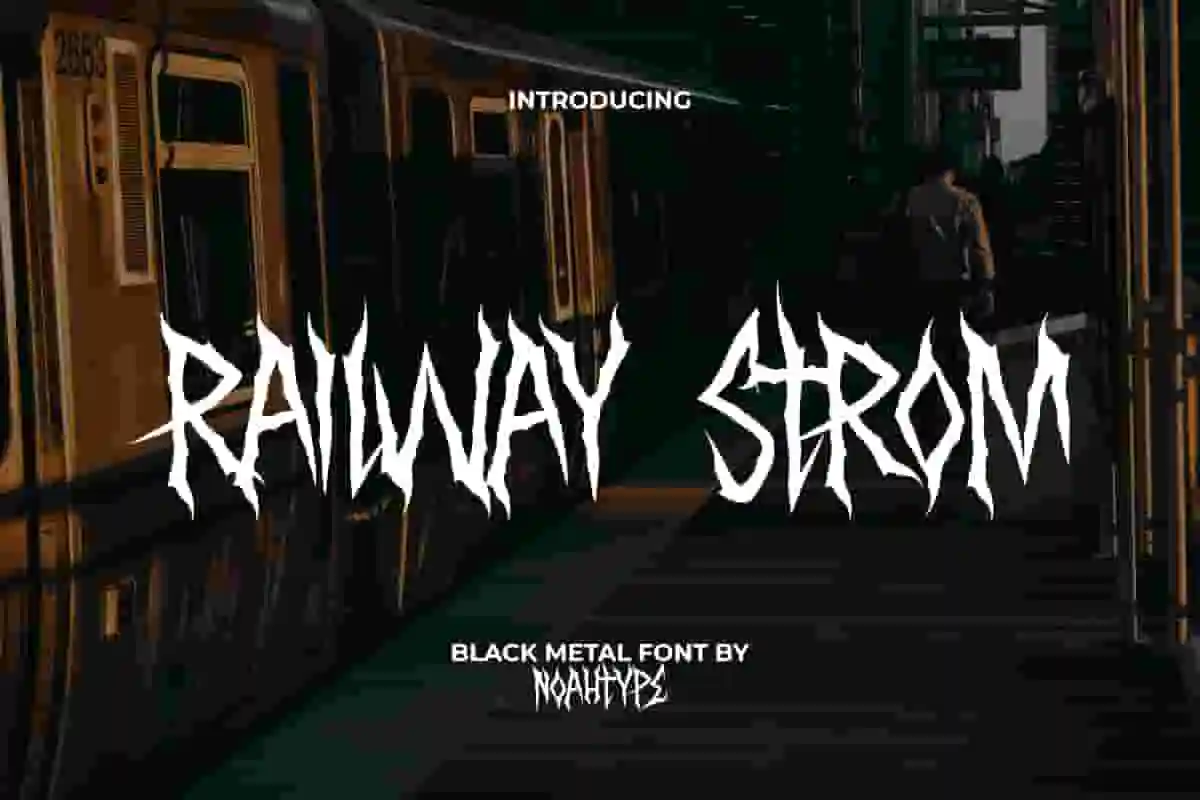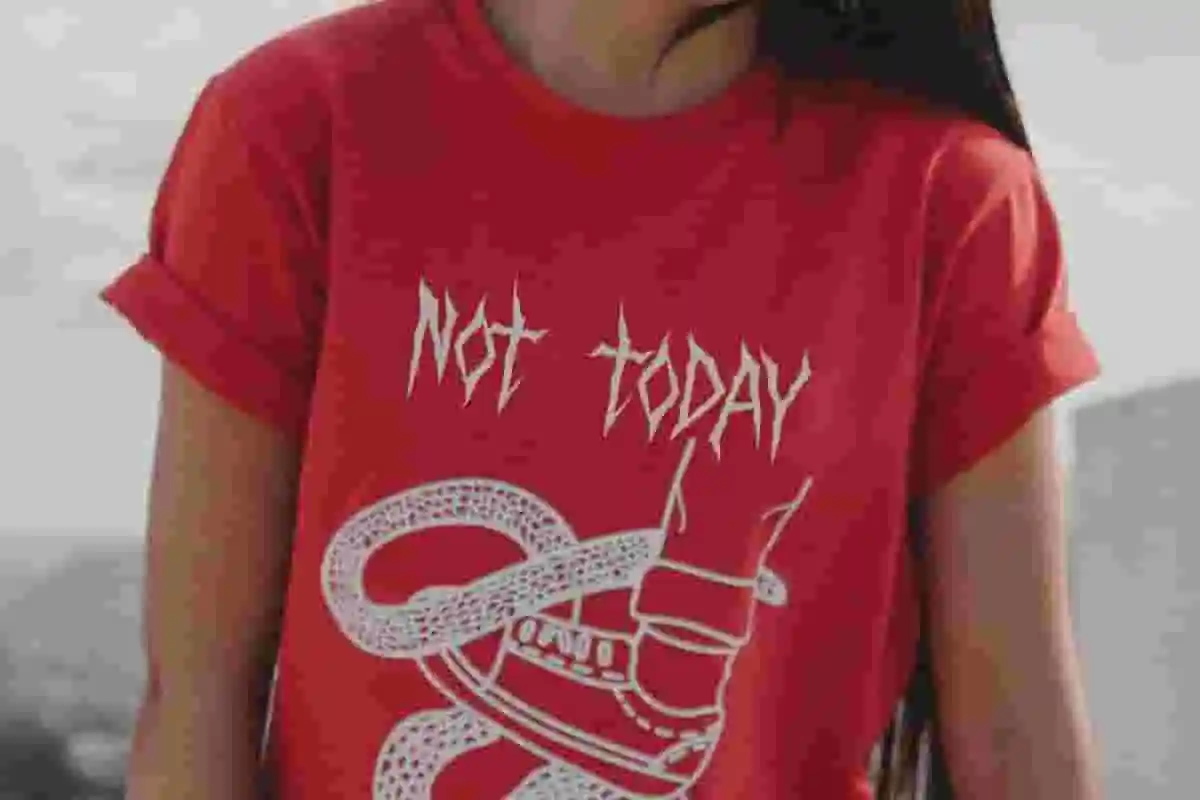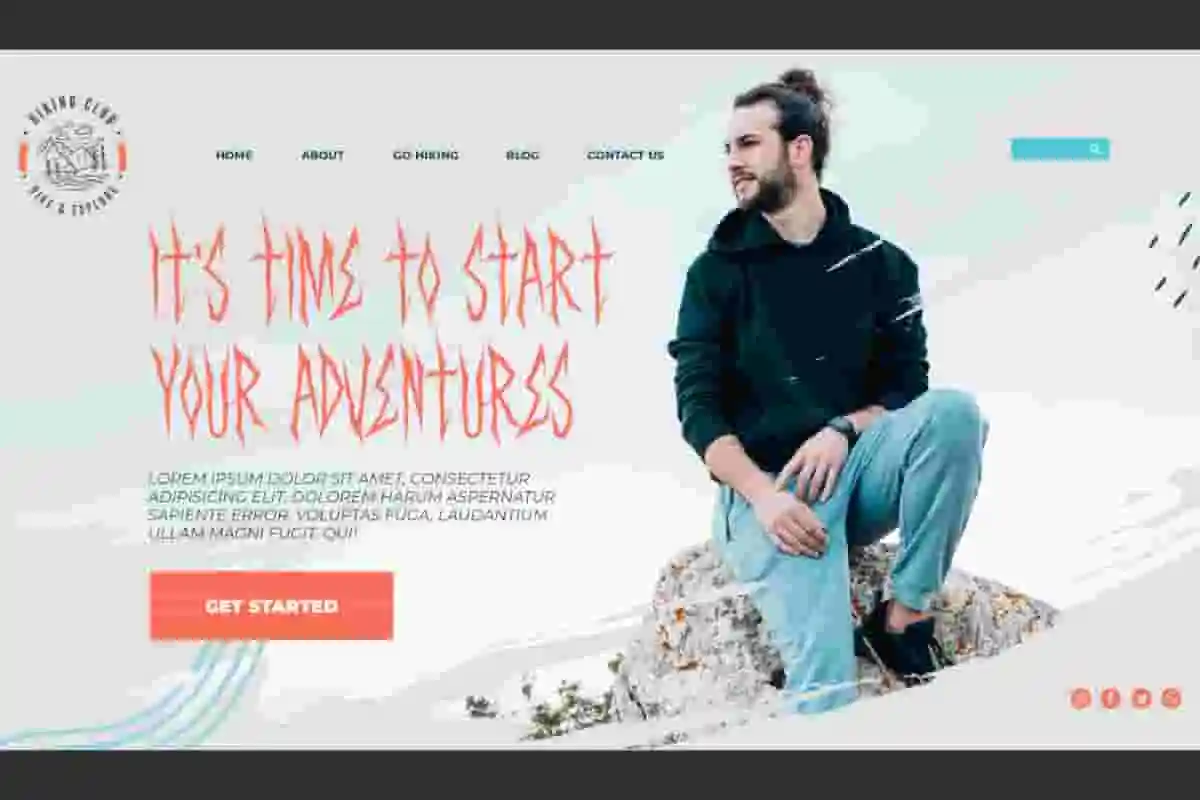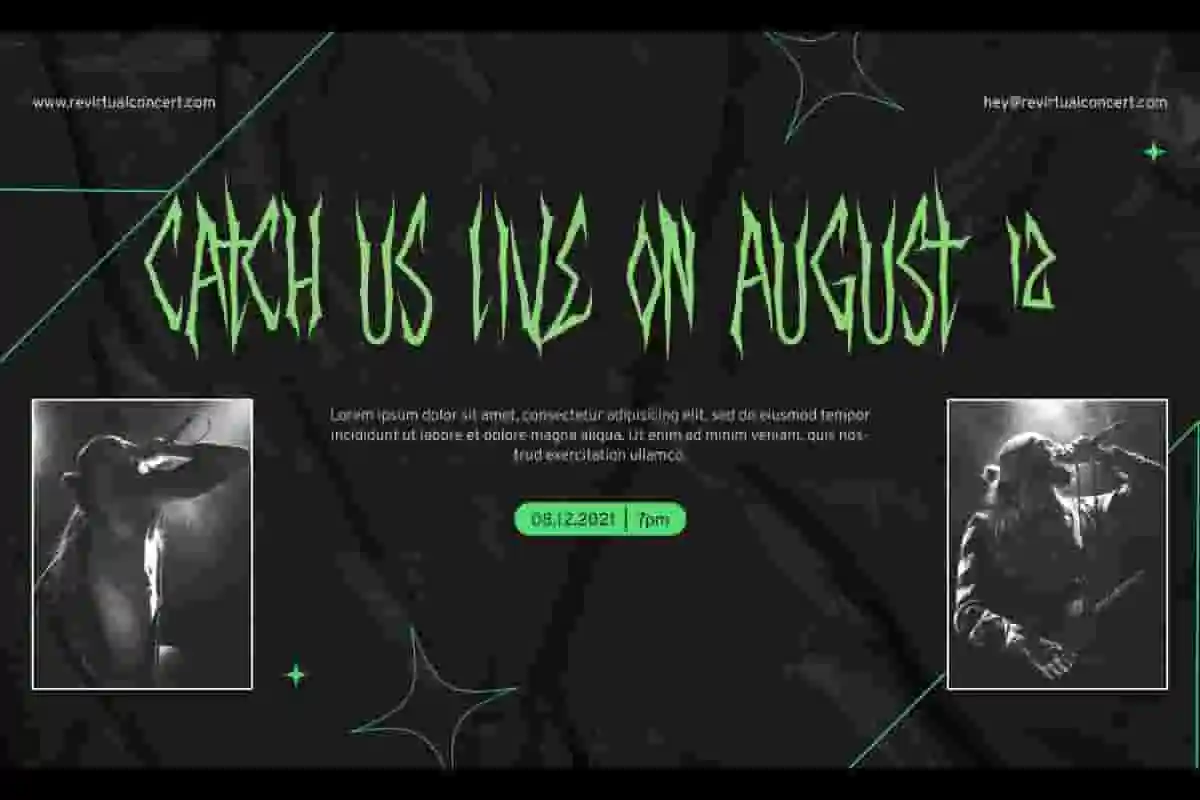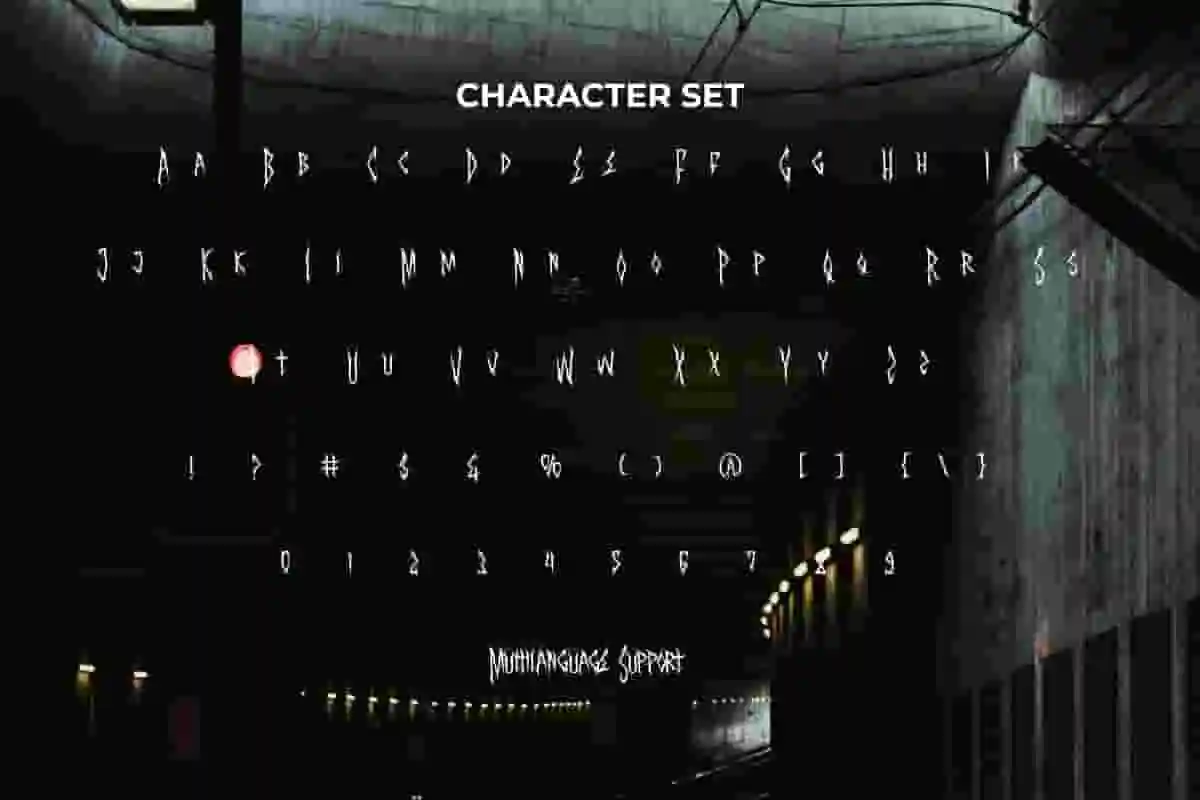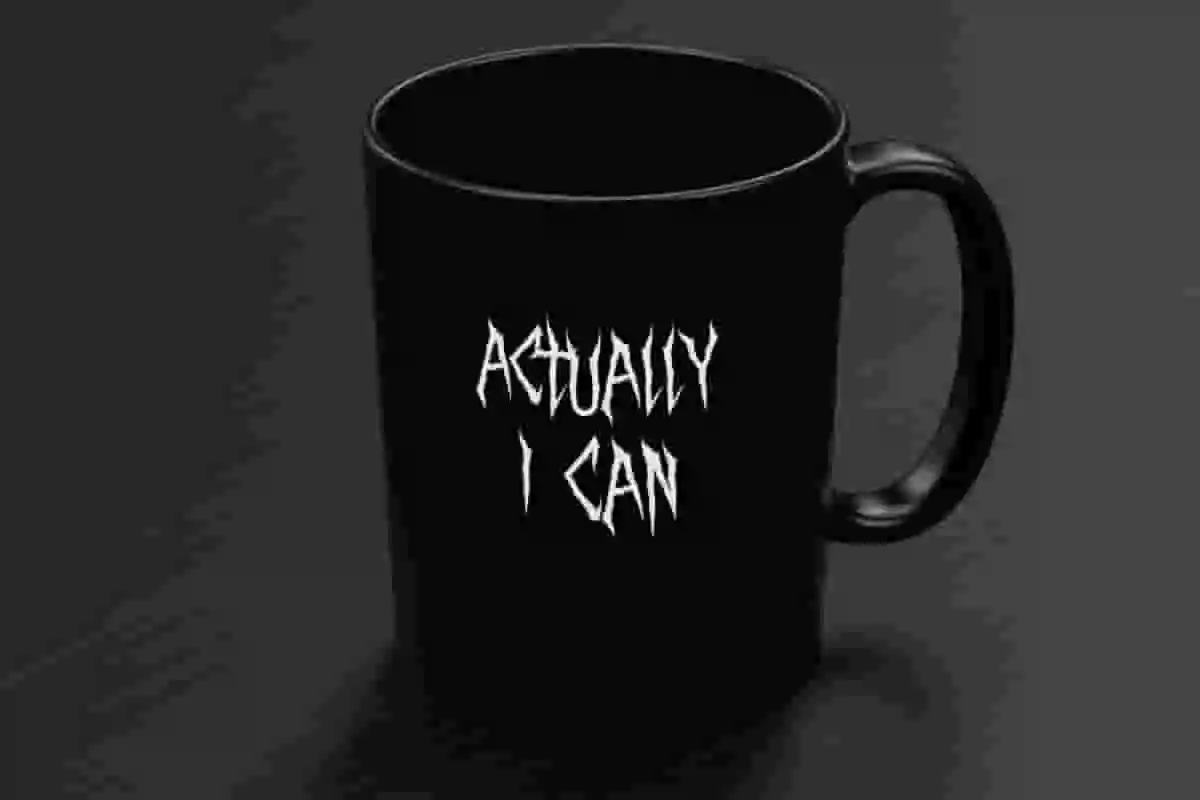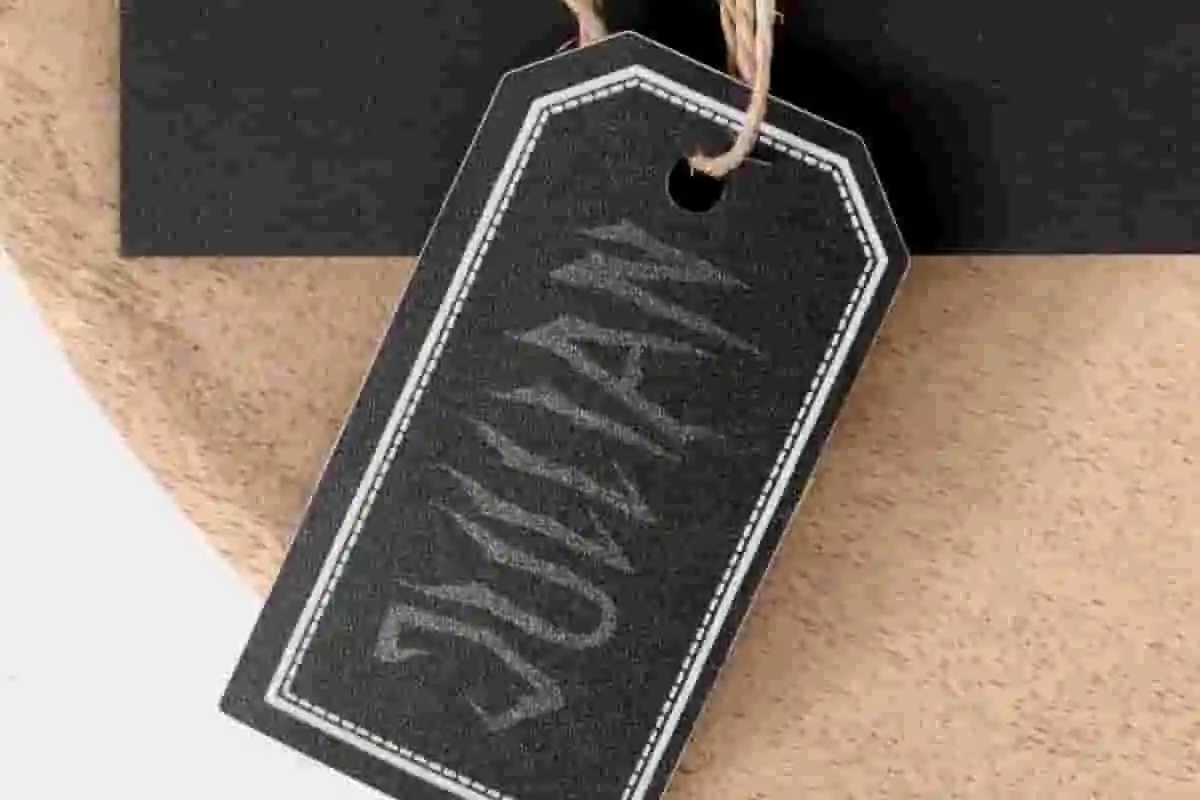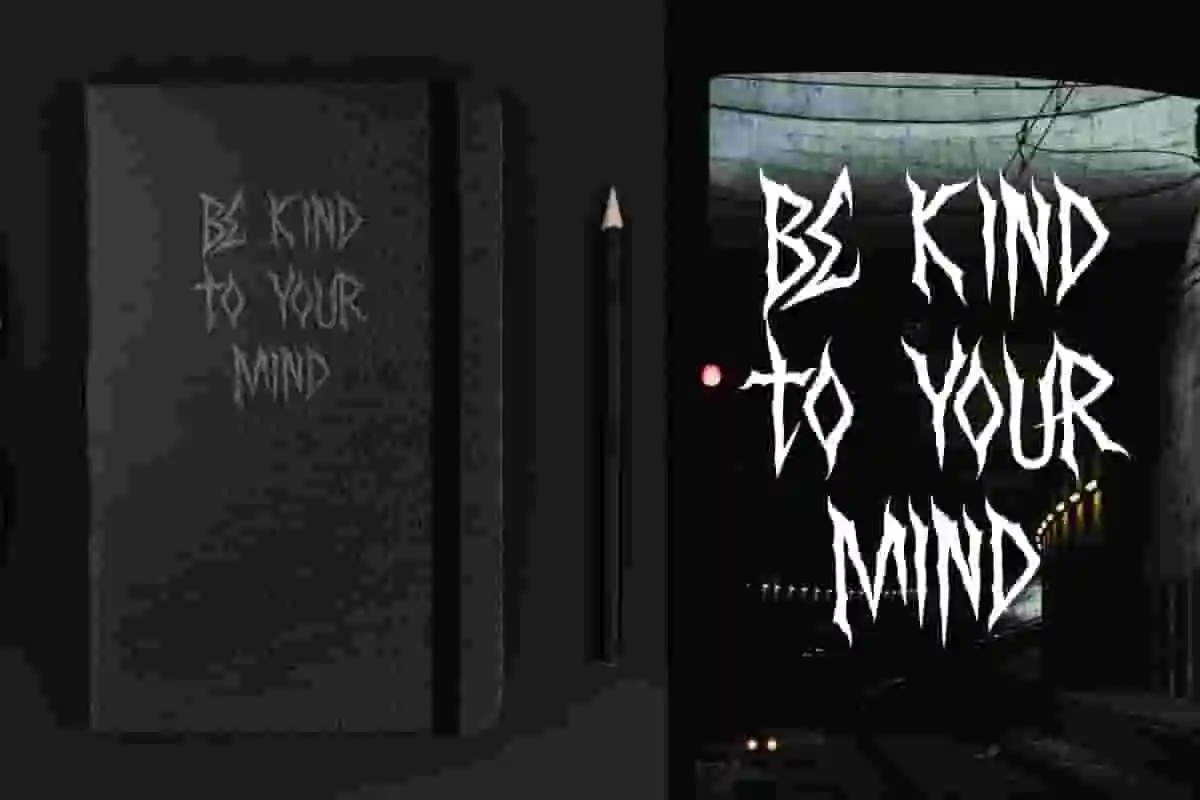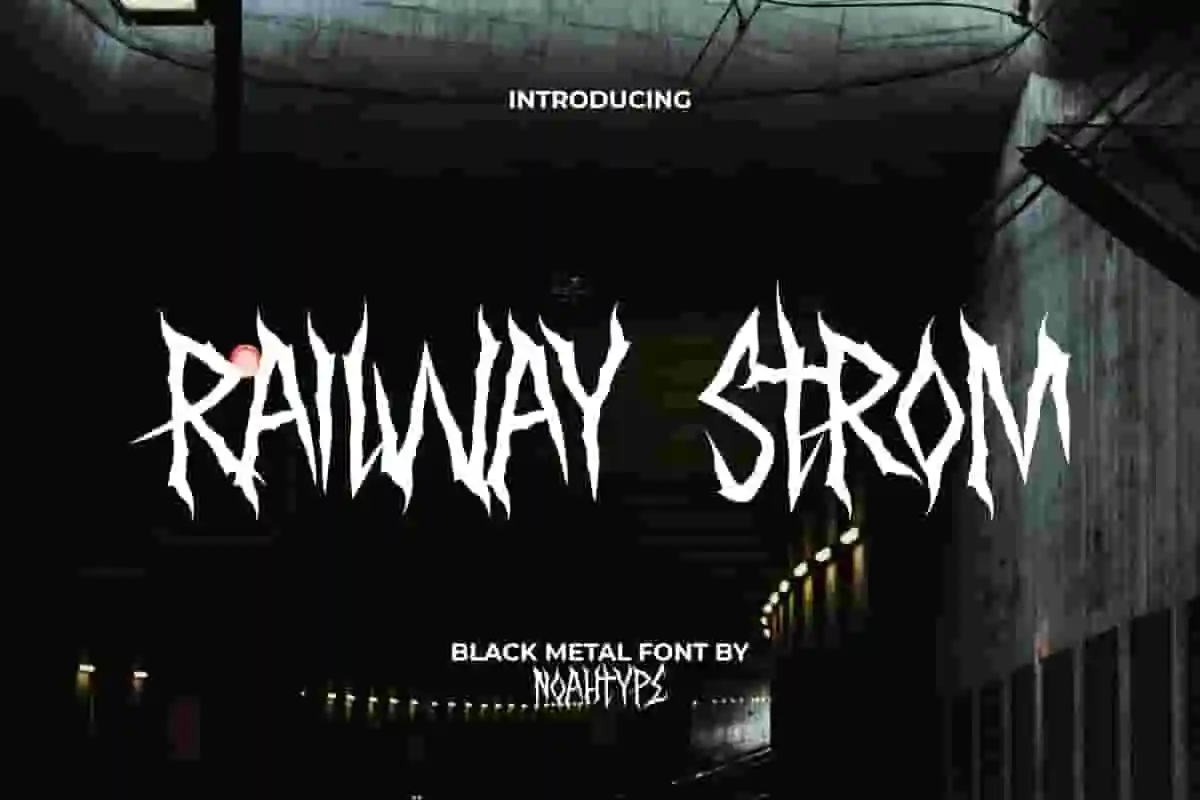
Railway Strom Font is a hardcore sketched rough spooky and sharp black metal font by NoahType. Its shape resembles a sharp and thorny tree branch, making it look scary and mysterious. It will be perfect for any designs, such as custom design, brand image, poster, label, invitation, cover, marketing material, menu, printing, product packaging, quotes, signage, website, and many more!
Railway Strom Font includes full set of ALL CAPS for Uppercase and Lowercase Basic Characters, Numerals, Punctuation, and Symbol. This cool font will make your design amazing and also a perfect choice for many industries, such as game, movie, comic, music, accessories, advertising, art, café, event or festival, fashion, printing, publishing, etc.